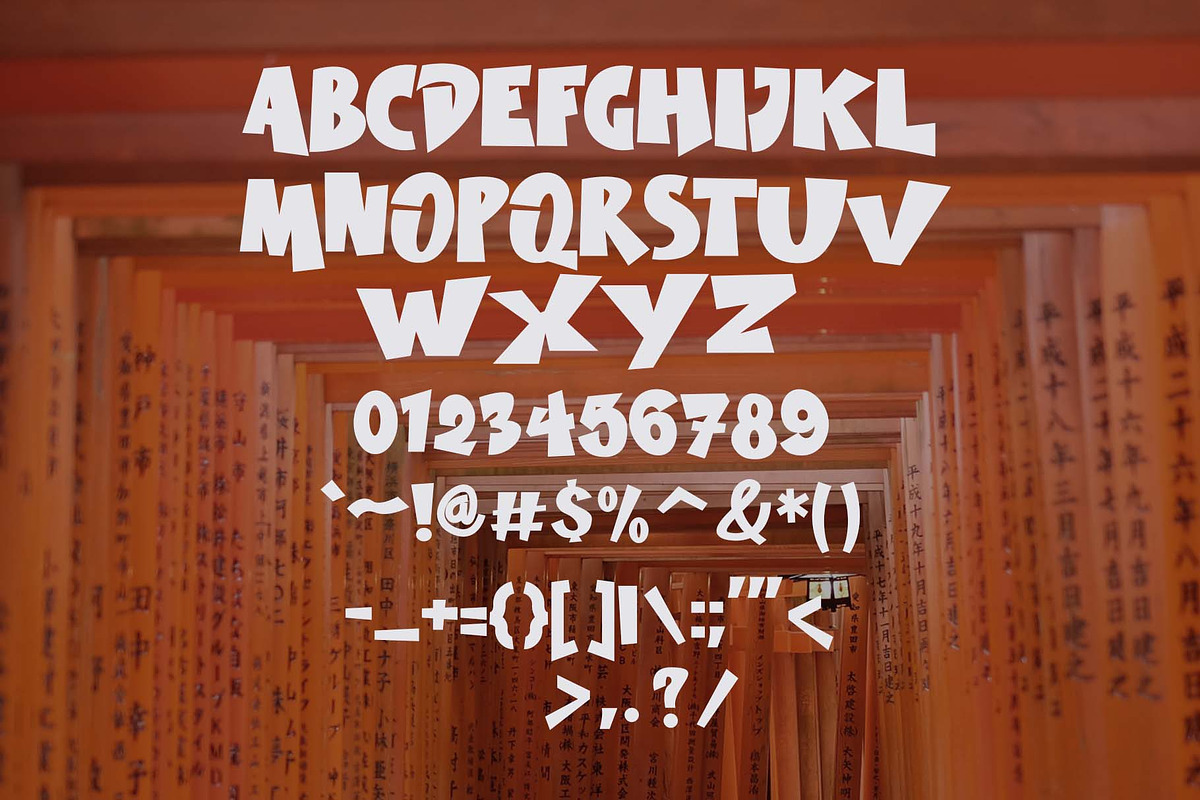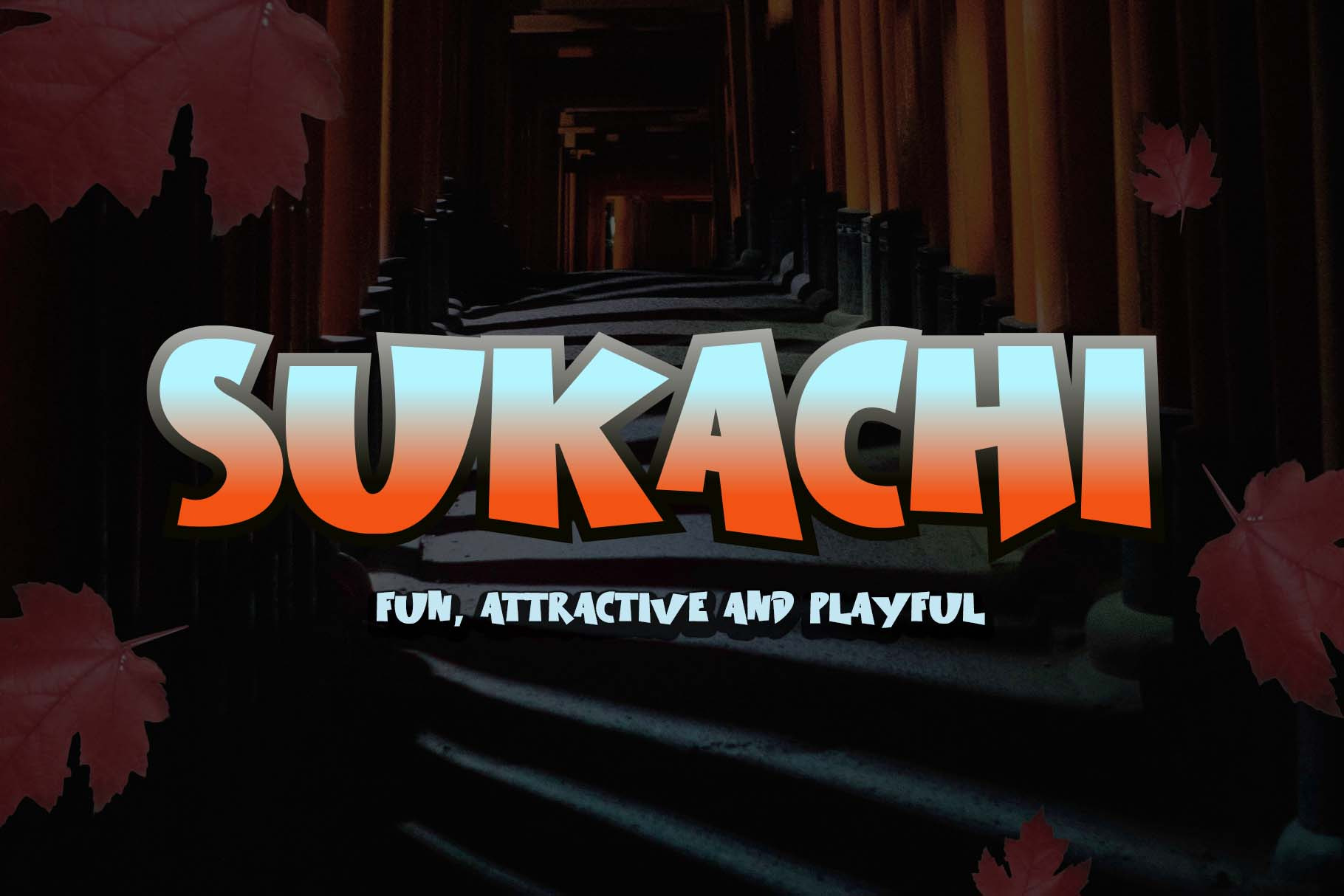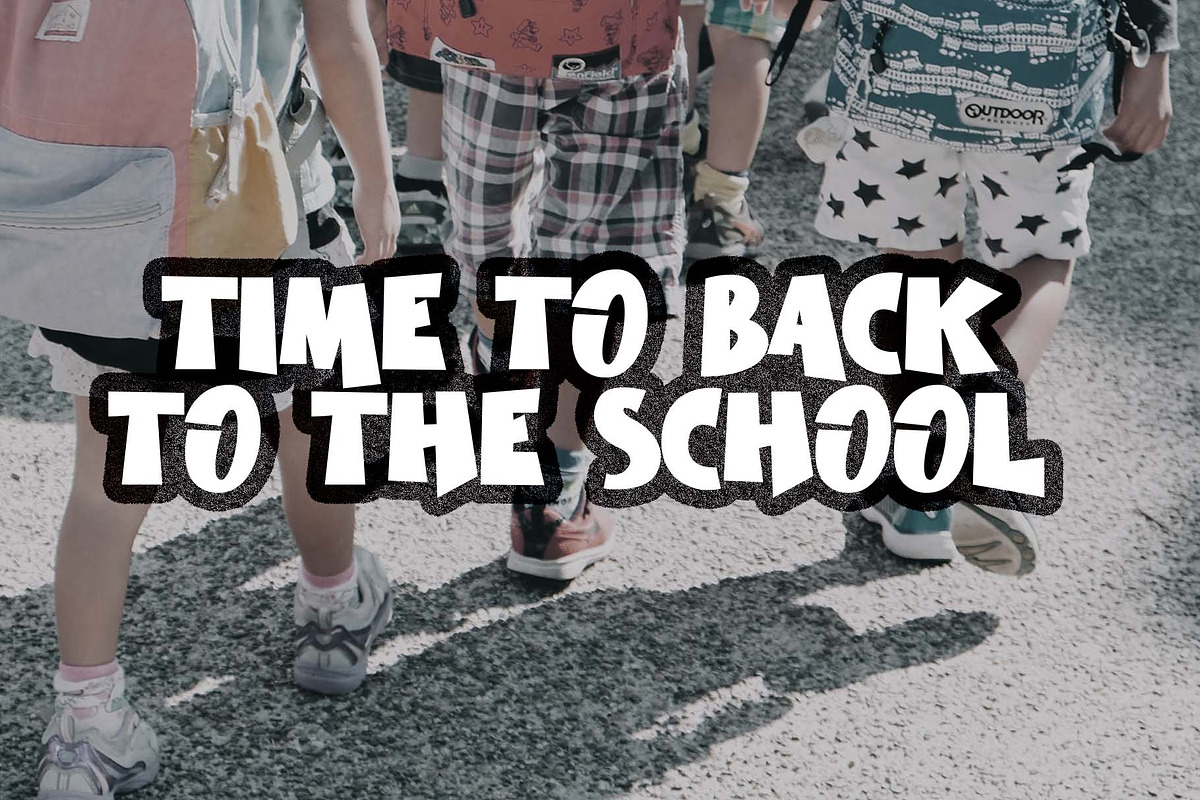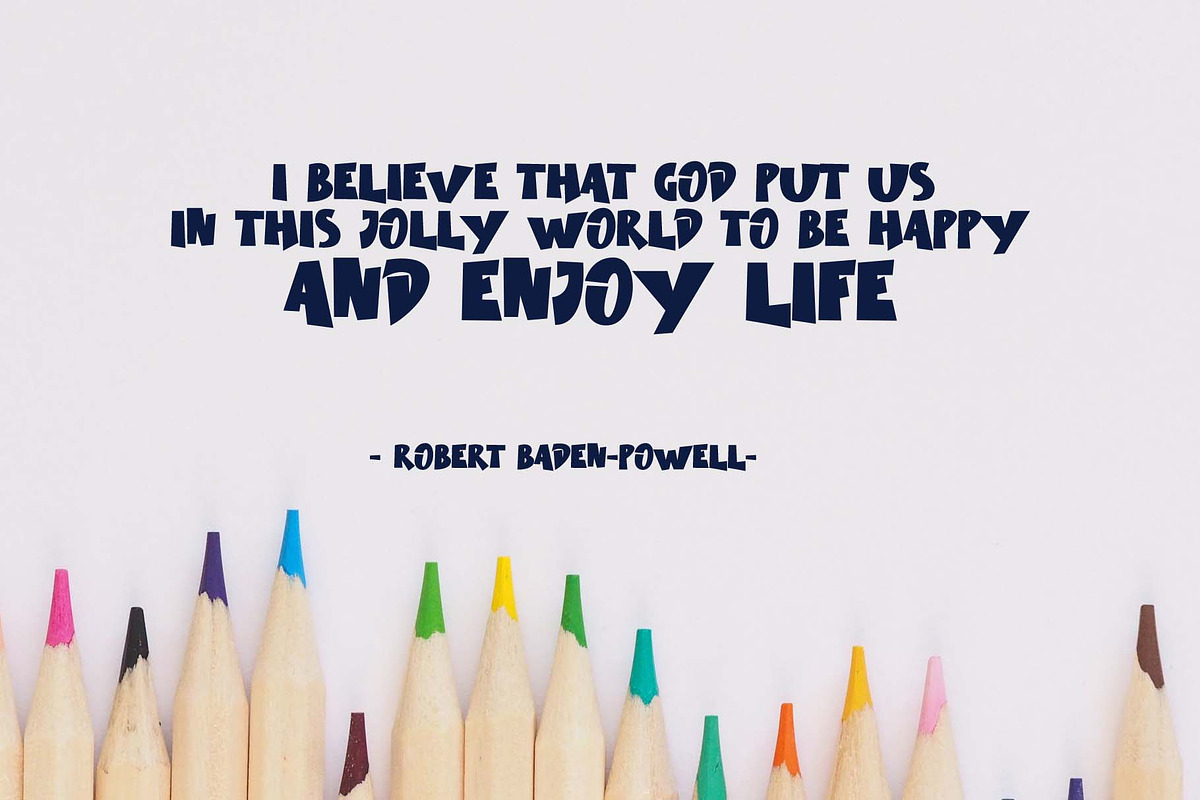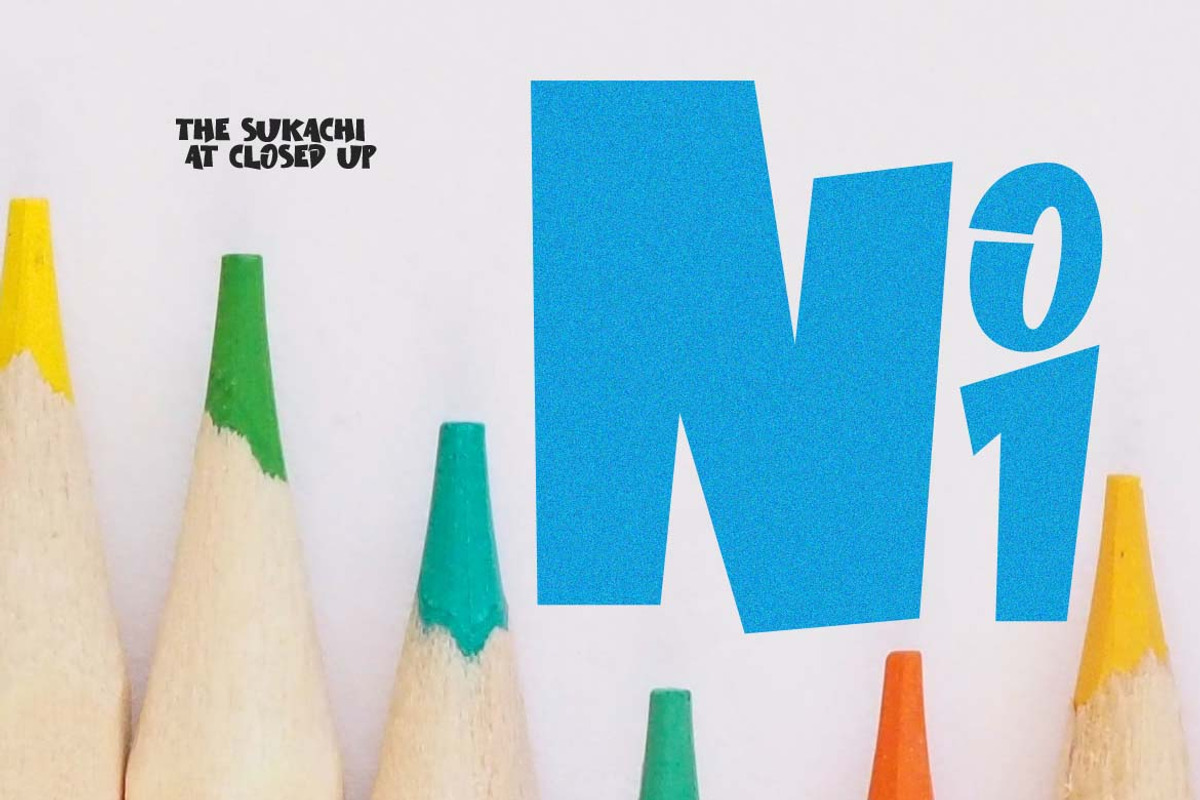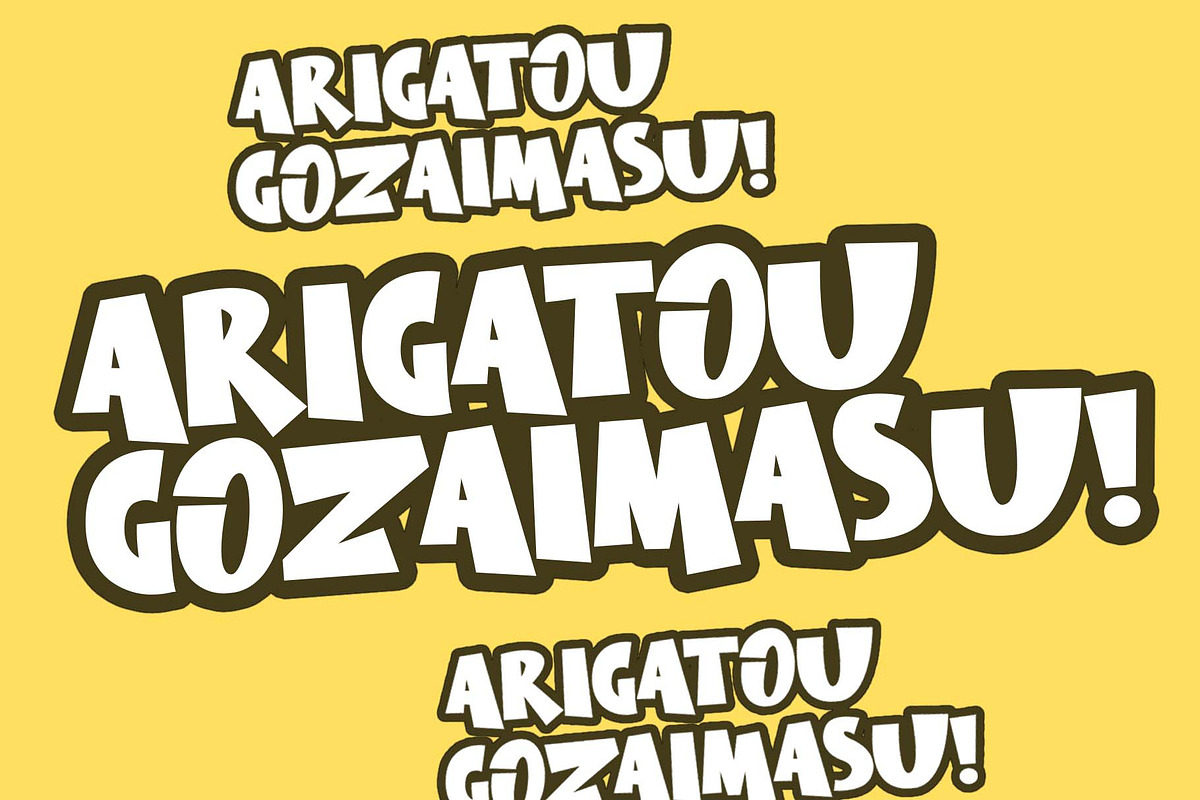
Sukachi - Display Font
Introducing Sukachi, a unique, modern, and simple display font. So perfect for you who needs a typeface for logo designs, magazine, social media, brochure, and many more.